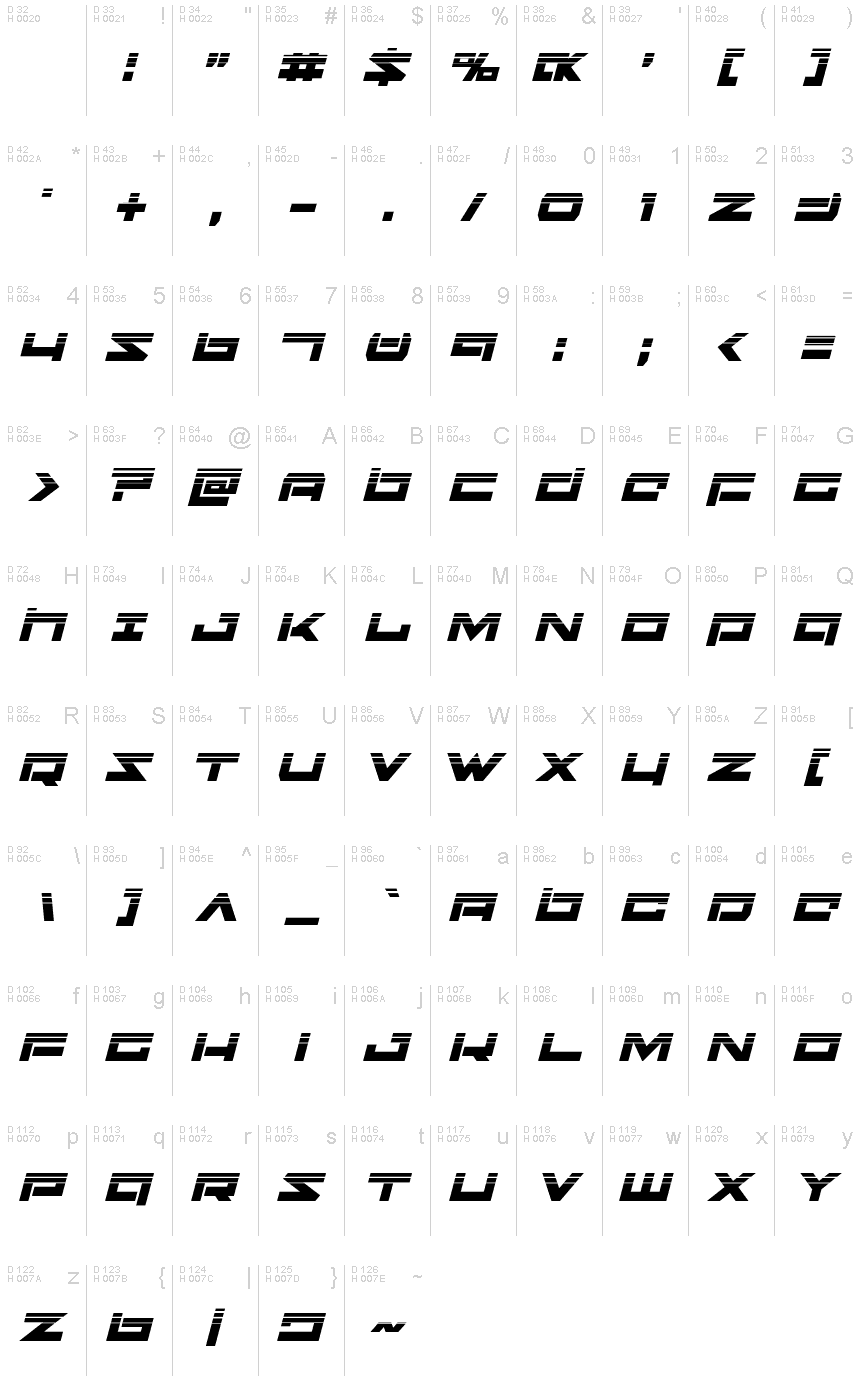
Ninjabot Halftone Italic
Ninjabot Halftone Italic, a bold and techno display font from Iconian Fonts, is the perfect choice for projects that require a futuristic and edgy look.
Its unique halftone design adds a touch of retro charm, making it ideal for posters, album covers, and branding materials. With its extra-expanded width, this font commands attention and demands to be noticed. Whether you're designing for a tech startup or an underground music festival, Ninjabot Halftone Italic will bring your project to life with its powerful presence.